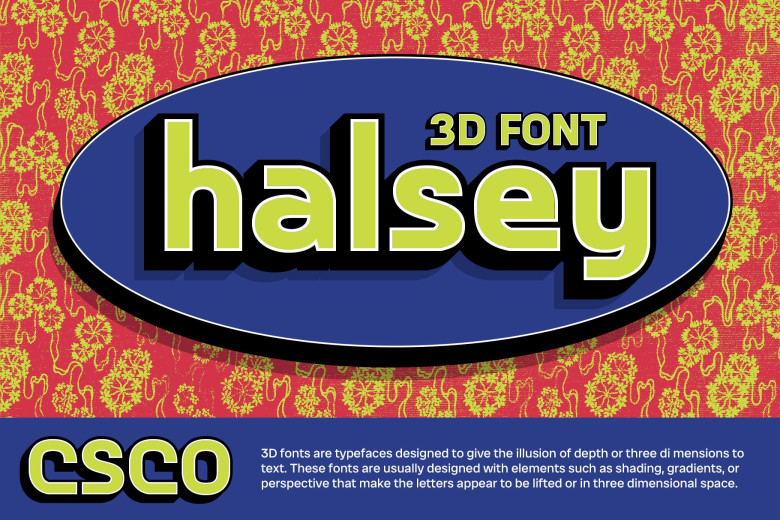
CS Halsey 3D Font
CS Halsey 3D is the sans-serif font with rather three-dimensional shapes. Perfect for designs that seek to convey the graphical topological disposition of text, this font gives the design an appeal that is richer in its dimensionality.
Ideal for Designs that will be Noticed Perfect for when your design is going to be the headline or banner, or any prominent placement, CS Halsey 3D makes sure people actually notice the message along with their immediate environment. Clear for flat designs, even bolder for more 3D shapes; has strong personality in spite of simplicity, – this is why it is rather popular among designs that plan to look attractive and draw attention.
A marvel of dimensions/n Despite the dimensions’ impact, this CS 3D font is versatile and engaging to clients. Because of its font style, this typeface is ideal for branding and other design activities when a font that creates an extra sensation is required to create an impact.
As a perfect choice for achieving the use of a font with a dynamic touch, CS Halsey 3D is perfect suitable for projects that call for this type of font. In a nutshell, this font is perfect for that special touch to a poster, a logo or a website in the process of designing.
CS Halsey 3D Sans Serif Font